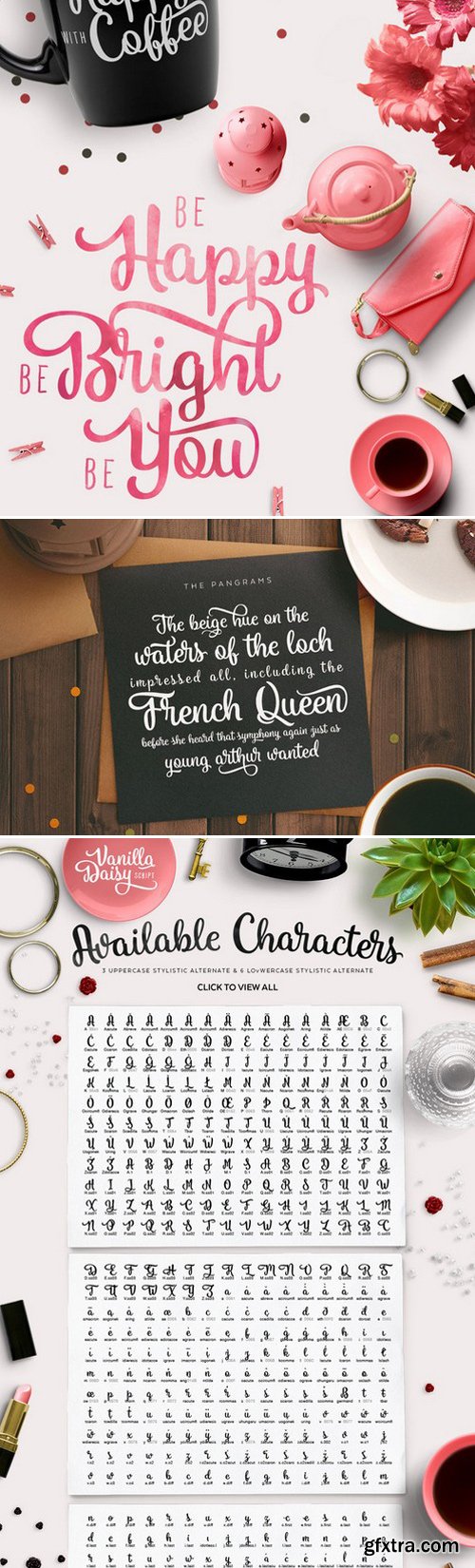
CM - Vanilla Daisy Script 383746
- Script font that have a huge alternate characters this gives many options to choose the best for you. Inspired by the dynamic style of hand lettering script and created not too feminine or masculine to make it more unlimited style for your lovely work such as : logos, posters, invitation, wedding, artistic design, website header, t-shirt, accessories, souvenir, etc.